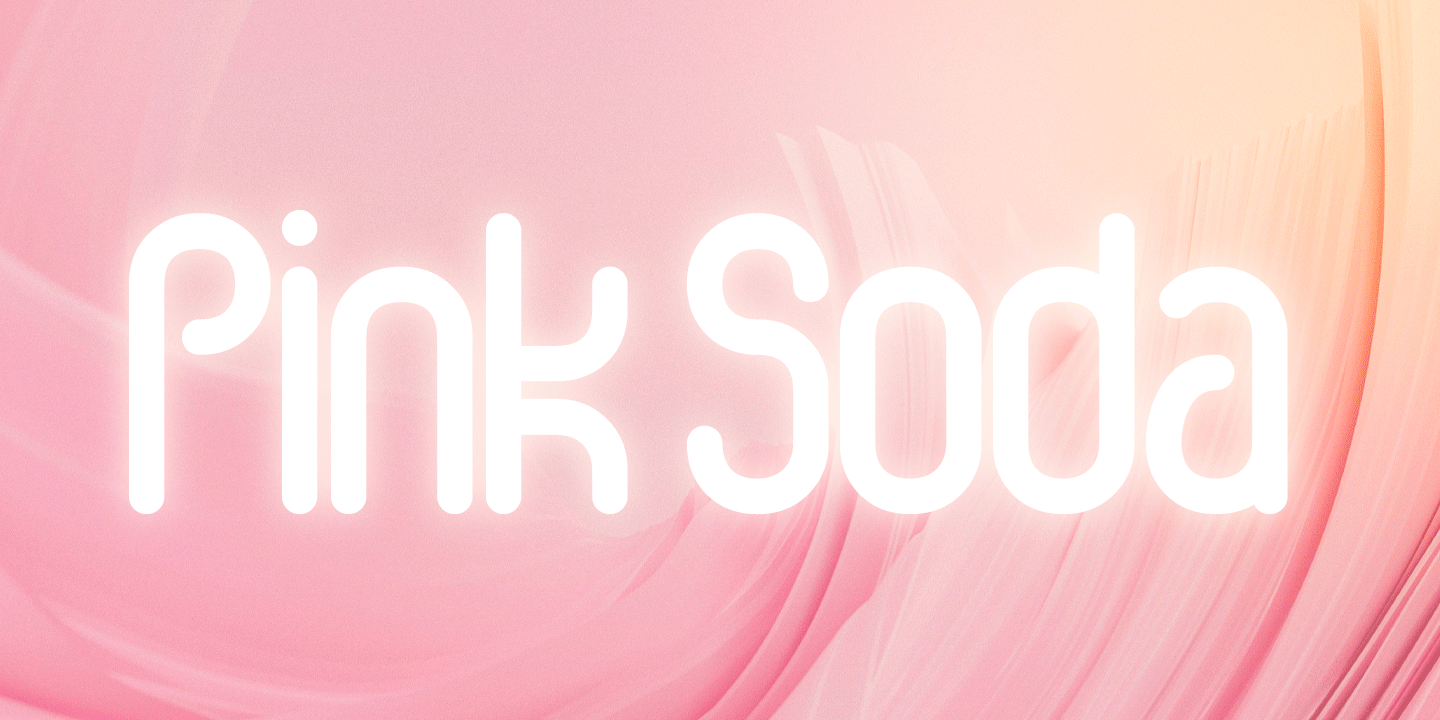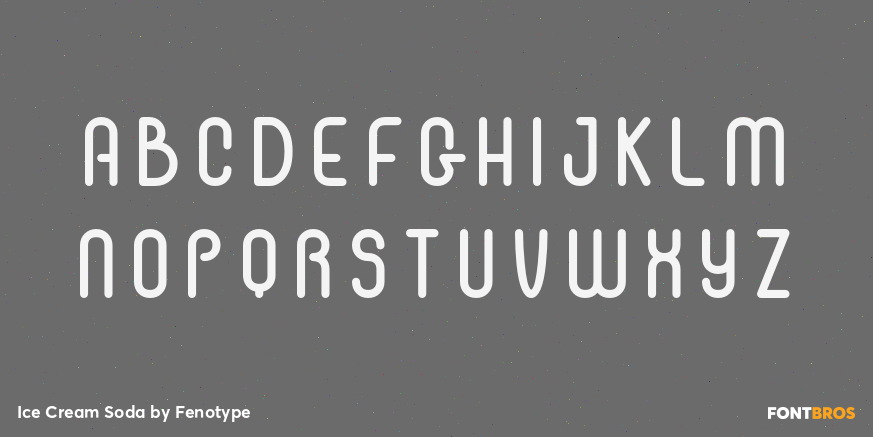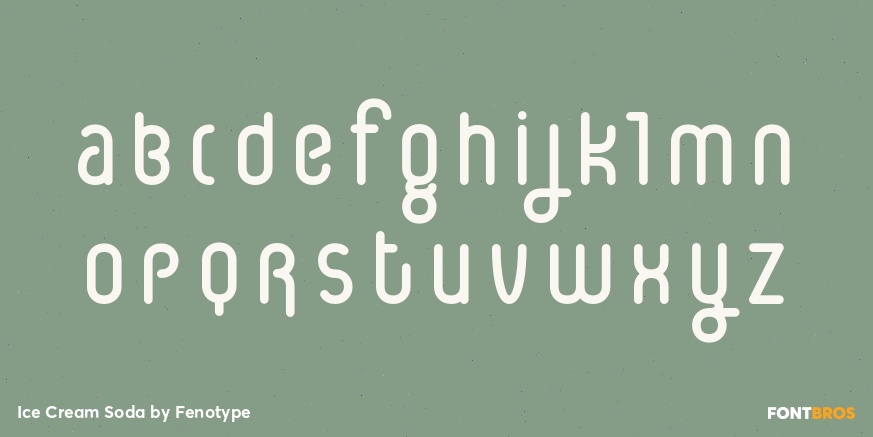
Ice Cream Soda
Font Family by Fenotype
Ice Cream Soda is a playful, futuristic sans serif with a distinctly wacky streak. Its upbeat personality gives words a quirky, attention-grabbing look that feels lighthearted, graphic, and a little offbeat.
Offered as a single font style by Fenotype, this design is a strong fit for display work where character matters most. Use it for posters, branding, packaging, social graphics, or any project that calls for a fun, unconventional voice with a clean sans serif foundation.